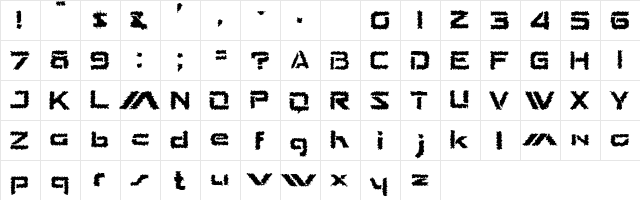
Got The Shakes Regular Font Preview
Got The Shakes Regular
Design Context for Got The Shakes Typeface
Got The Shakes is a composed and adaptable typeface that performs quietly and consistently across a wide range of design contexts.